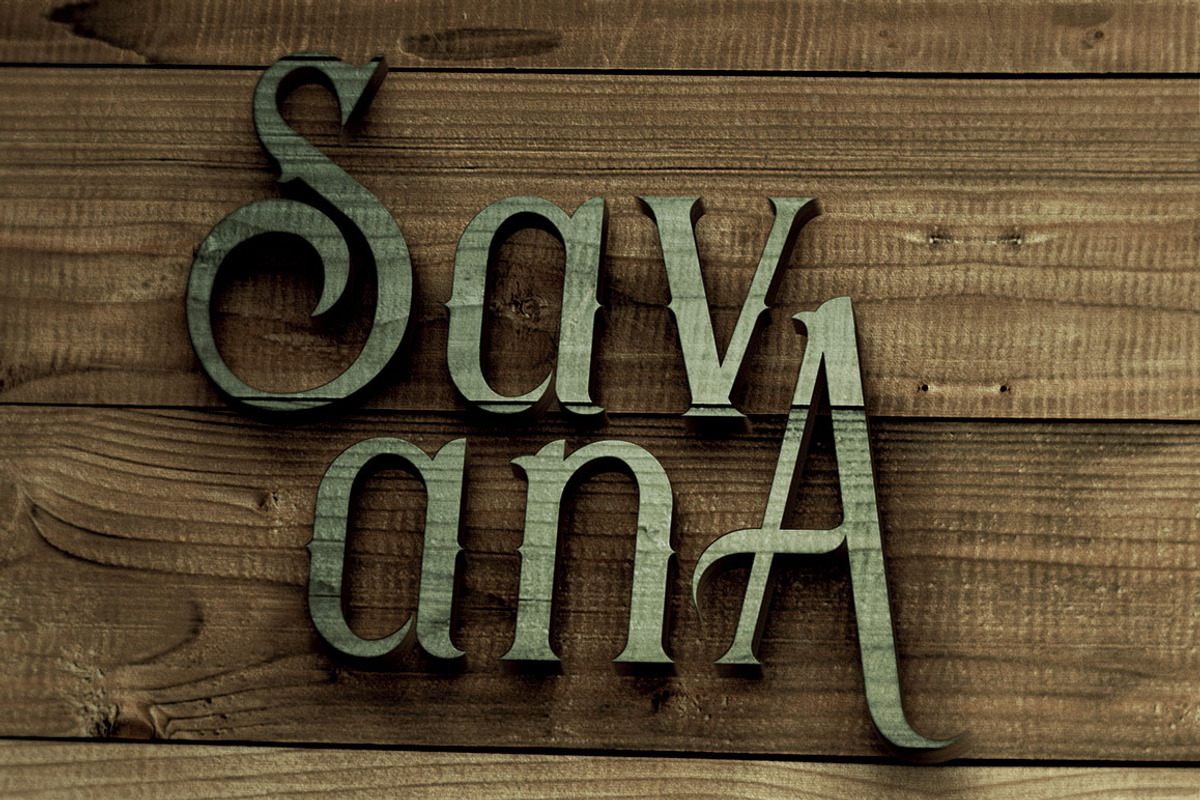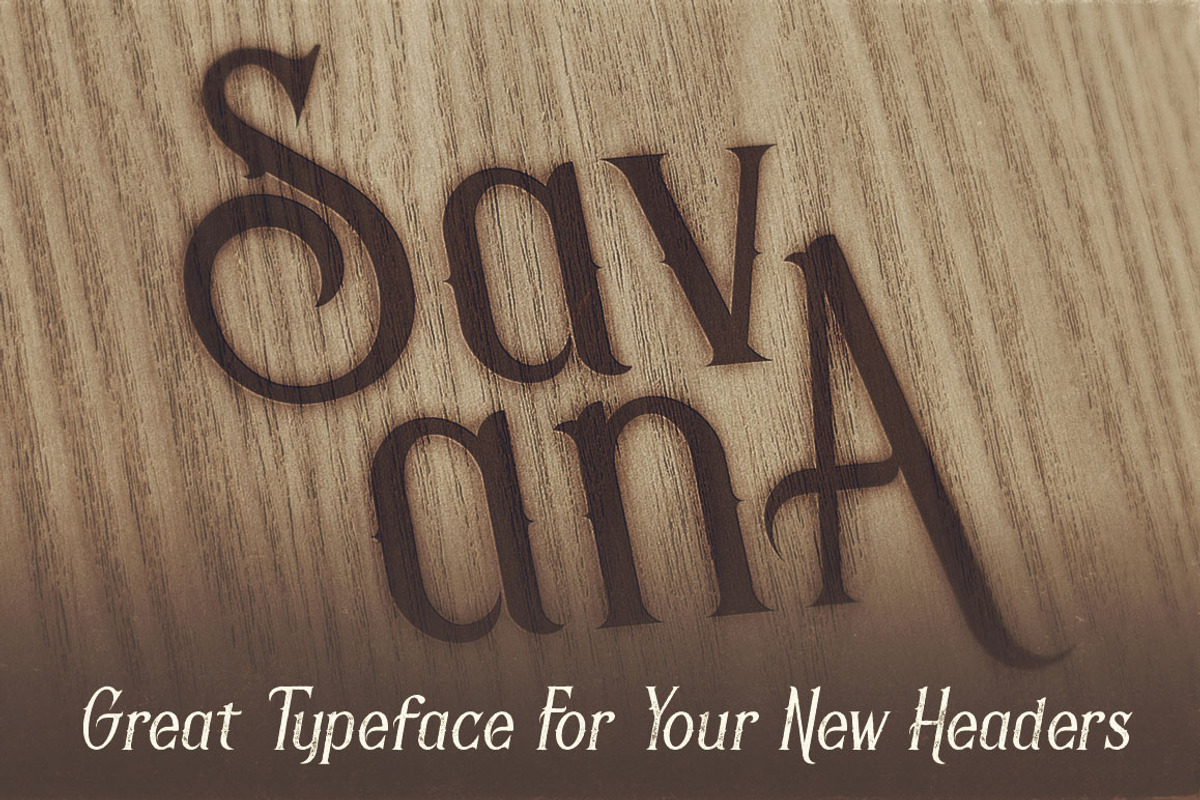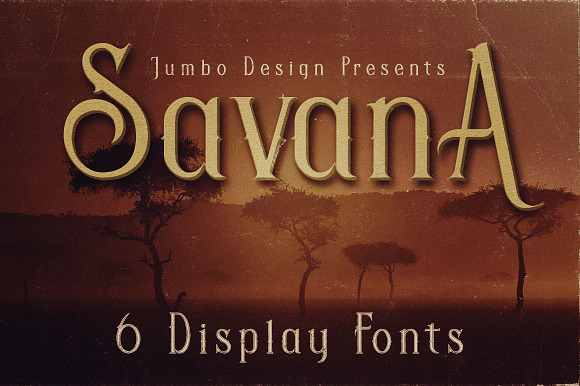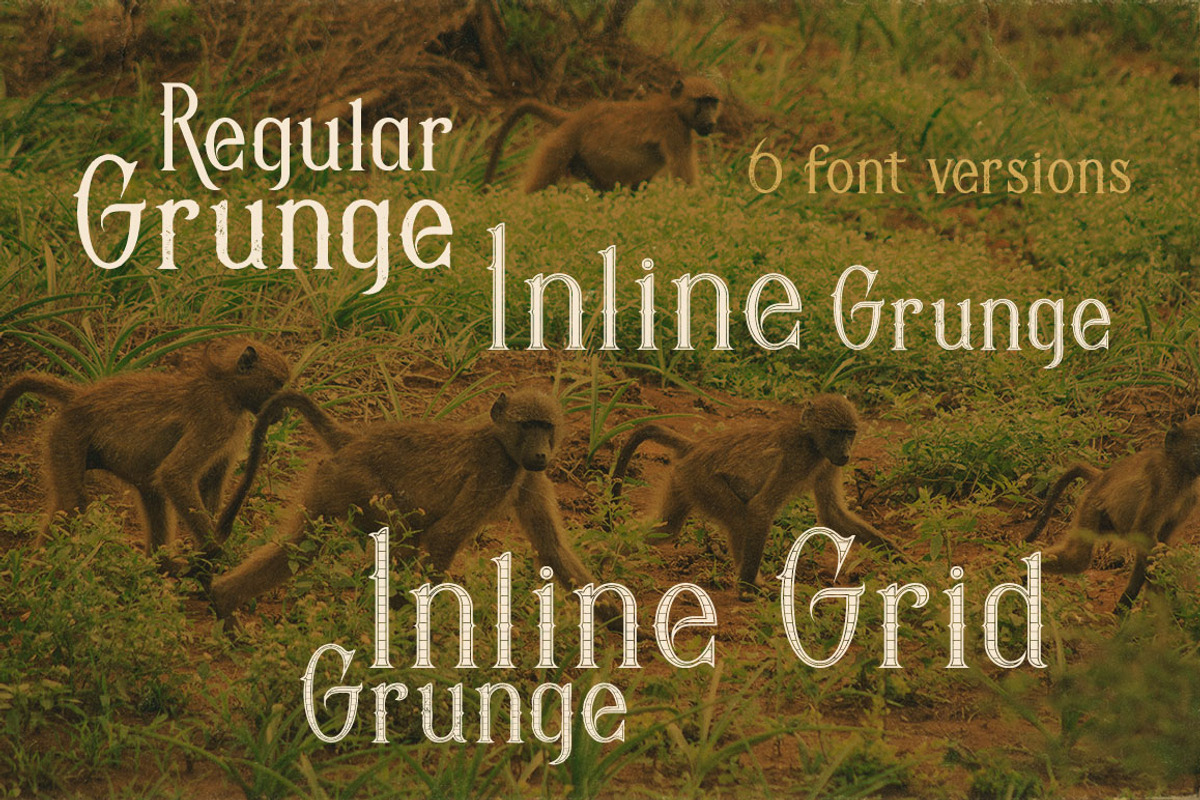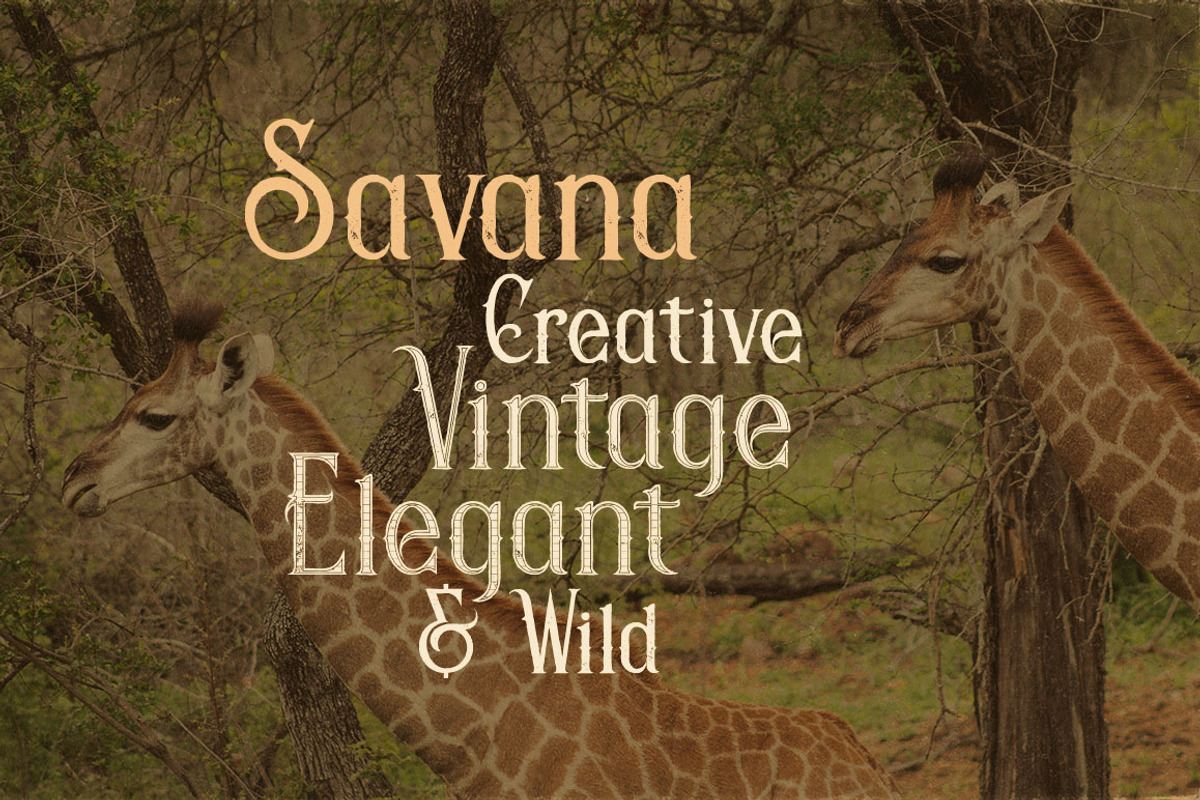
Savana - Display Font
Unique vintage or retro style custom serif font with 6 styles: regular and grunge, inline and inline grunge, inline grid and inline grid grunge!
Savana - Display Font by JumboDesign fits naturally into Branding, posters, packaging, typography.